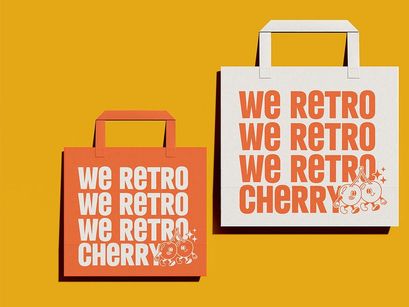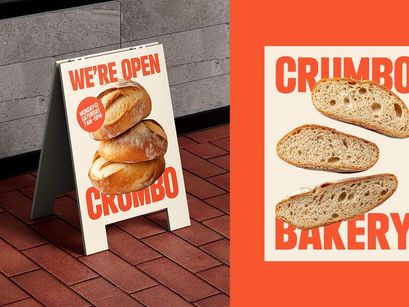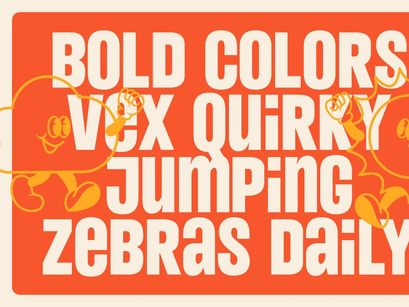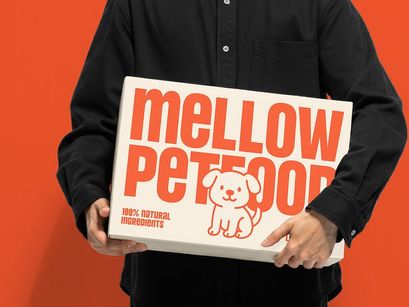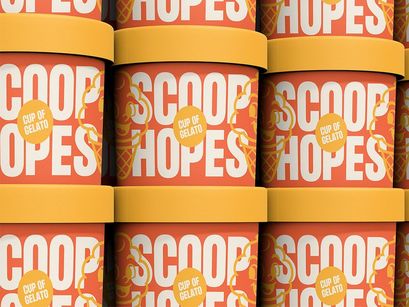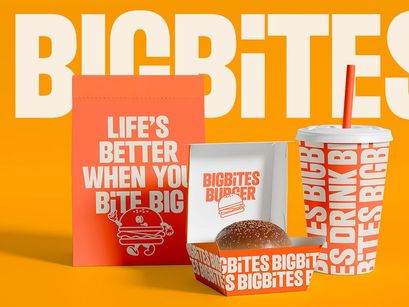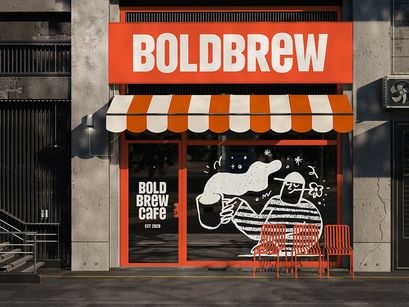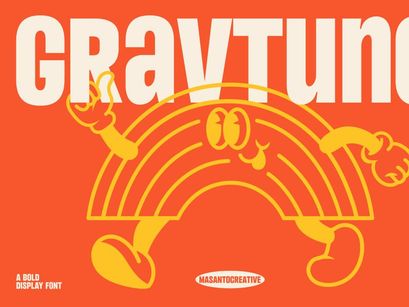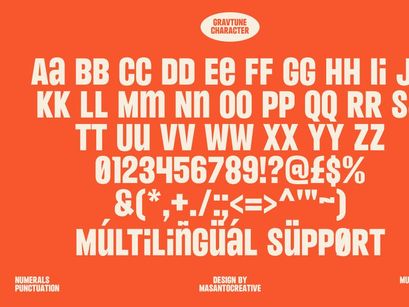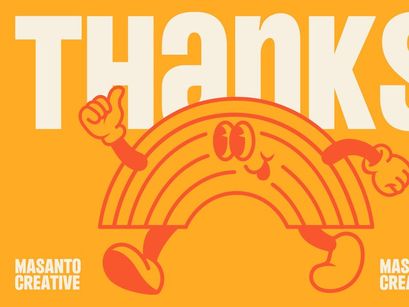
Gravtune – Bold Retro Display Font
Gravtune is a bold retro display font designed to bring strong personality, playful energy, and eye-catching style to your projects. Inspired by modern-retro branding aesthetics, Gravtune delivers a clean, chunky, and friendly look that shines in large display settings. With its rounded proportions and expressive form, this font is perfect for bold visual identities—whether you're designing food & beverage branding, packaging, posters, signage, merchandise, or cheerful character-based artwork. Gravtune includes multilingual support, complete punctuation, numerals, and consistent letterforms, making it highly versatile for professional design workflows. Its bright and quirky vibe makes every layout feel fun, energetic, and memorable.
• Multilingual Support
• Complete Uppercase & Lowercase
• Numbers & Punctuation
• Modern retro bold style
Perfect For
• Branding & Logo Design
• Packaging (Food, Drinks, Snacks, Pet Food, Ice Cream)
• Retro-Modern Merchandise
• Posters & Signage
• Cafe, Bakery, Restaurant Identity
• Social Media Graphics
• Fun Mascot-Based Designs